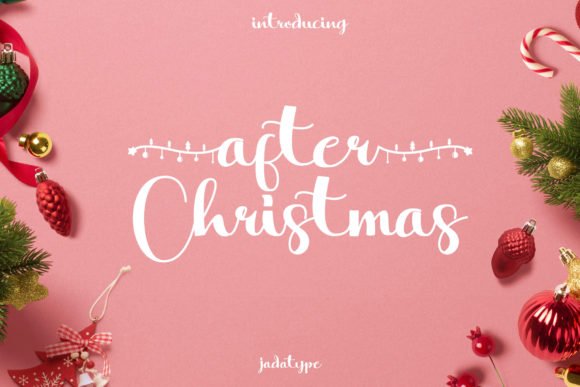
Unwrapping the Magic of the After Christmas Font
As the holiday season comes to a close, I find myself rummaging through my scrapbook of design inspirations, reminiscing about the joy and creativity it brought. And then, it hits me – the perfect opportunity to share one of my favorite fonts that captured my heart during the festive season: the After Christmas Font.
This enchanting, elegant font is more than just a decorative element; it’s a canvas waiting to be filled with love, laughter, and cherished memories. Its ravishing style makes it an ideal choice for creating stunning wedding invitations, exquisite stationery, captivating social media posts, and so much more. As a designer, you’ll appreciate the font’s PUA encoding, which grants you effortless access to all glyphs and swashes, elevating your designs to new heights.
- Unique Characteristic: The font features a unique, hand-drawn style with subtle imperfections, giving it a warm and festive feel.
After Christmas Font Review
I recently had the chance to work with the After Christmas Font, and I must say it’s an interesting choice for the holiday season. ✨ One thing that works well is the unique blend of winter and holiday elements in the font. The combination of snowflakes, holly, and festive colors creates a cohesive look that’s perfect for Christmas-themed designs.
✨ The font is also highly customizable, with a wide range of color options and layout styles to choose from. This makes it easy to adapt to different design projects and styles.
- ⚠️ Limited character set: The font only includes a limited set of characters, which can be a problem for longer text-based designs.
- ⚠️ May not be suitable for non-holiday designs: The font’s festive theme may not be suitable for designs that aren’t related to Christmas or the holiday season.
- ⚠️ Not ideal for small text: The font’s design can make small text difficult to read, especially in longer blocks of text.
Overall, I think the After Christmas Font is a great choice for holiday-themed designs, but it may not be the best option for more general design projects. With its unique blend of winter and holiday elements, it’s a great addition to any designer’s toolkit.
Some tips for getting the most out of the After Christmas font include:
– Using it in conjunction with other festive graphics and design elements to create a cohesive look.
– Experimenting with different font sizes and styles to create visual interest.
– Using it to create a custom holiday logo or brand identity.
– Some common use cases for the After Christmas font include holiday cards, gift tags, party invitations, and holiday-themed social media posts.